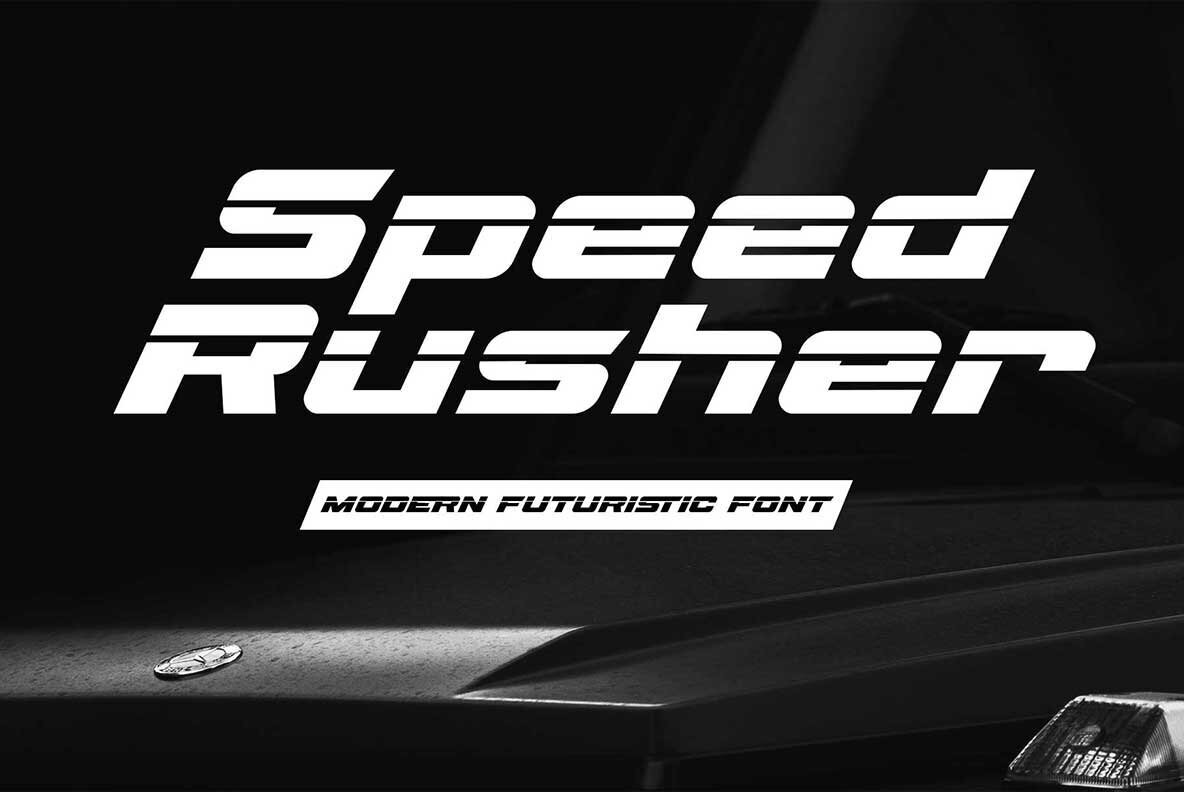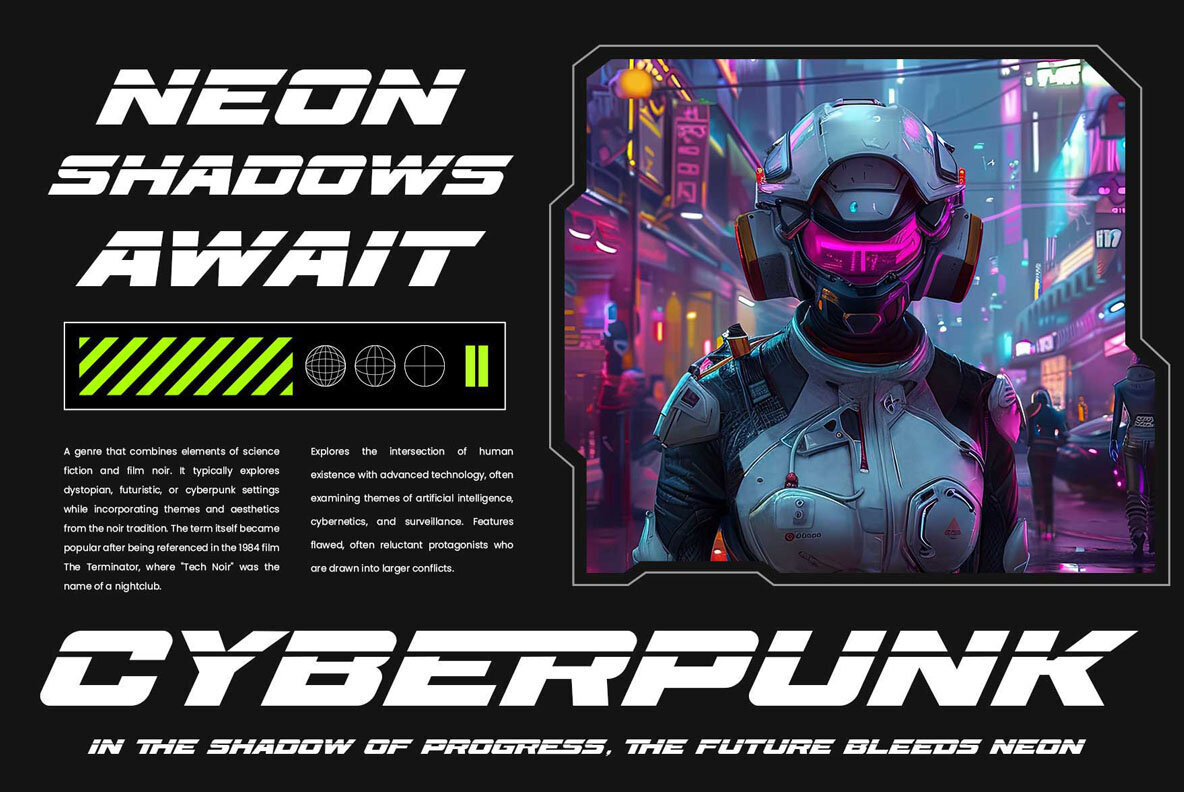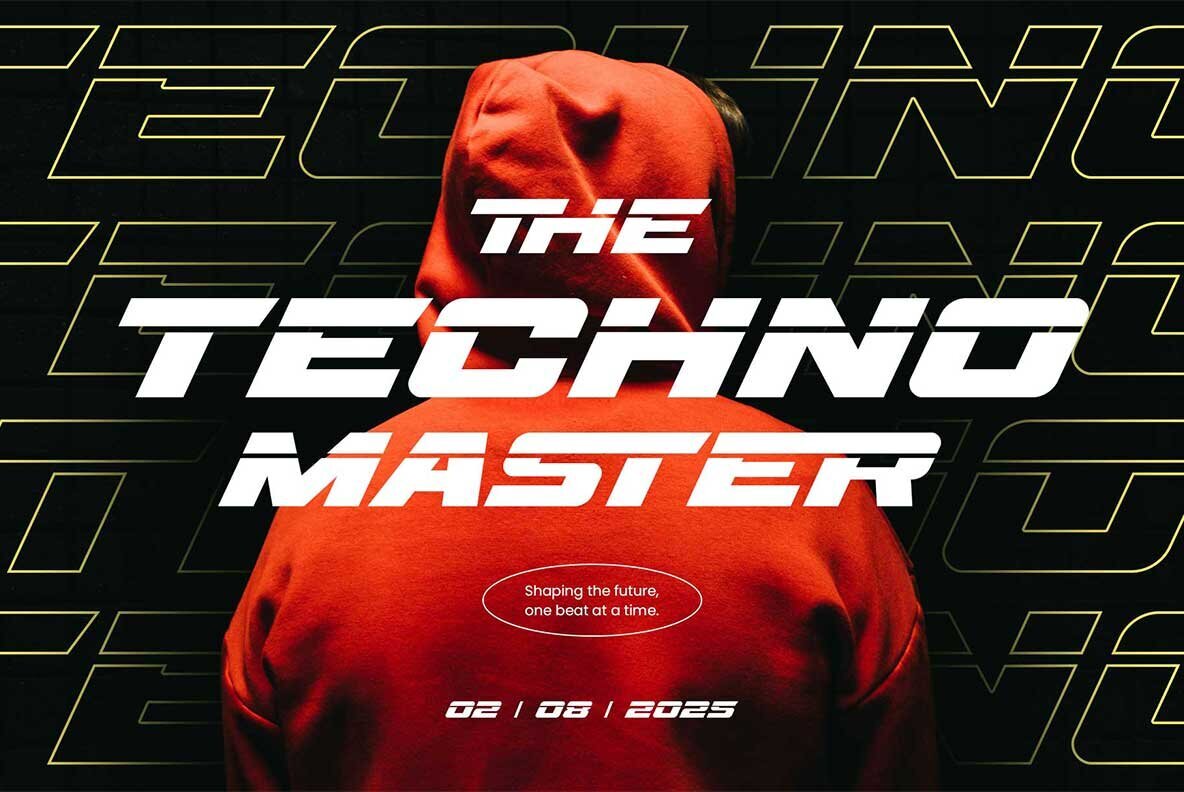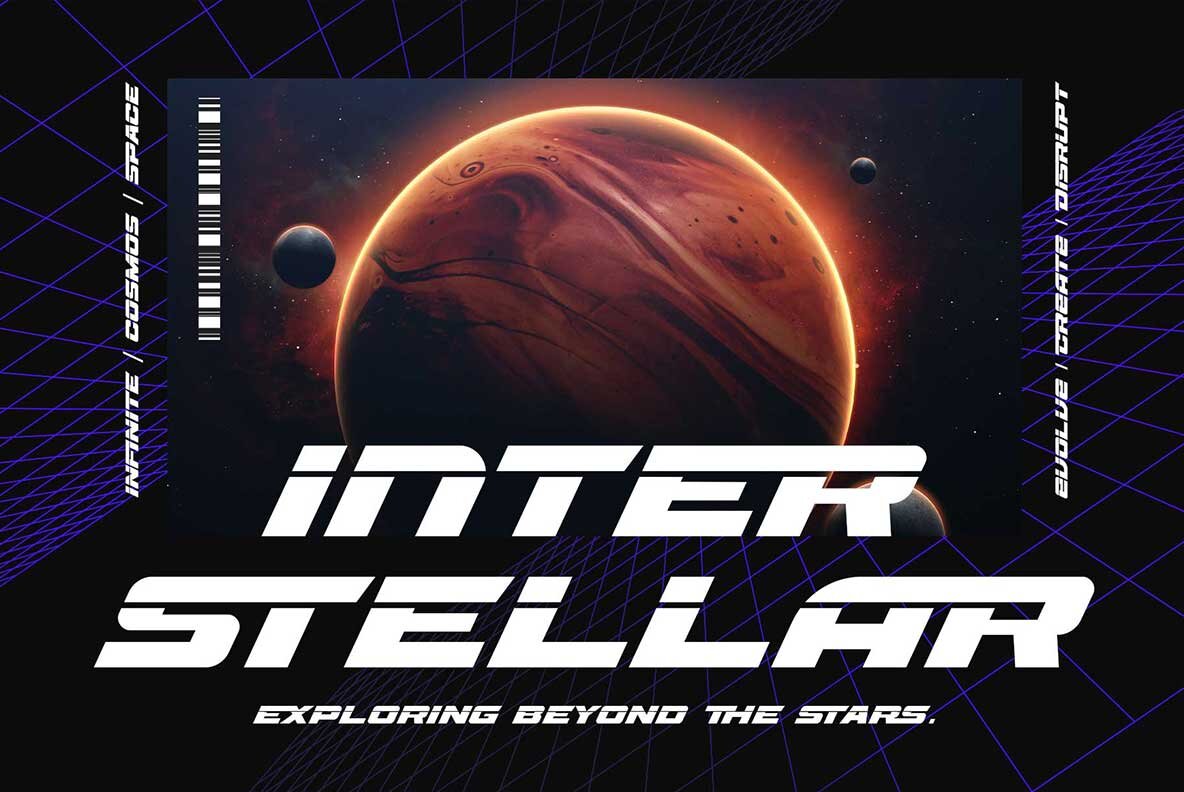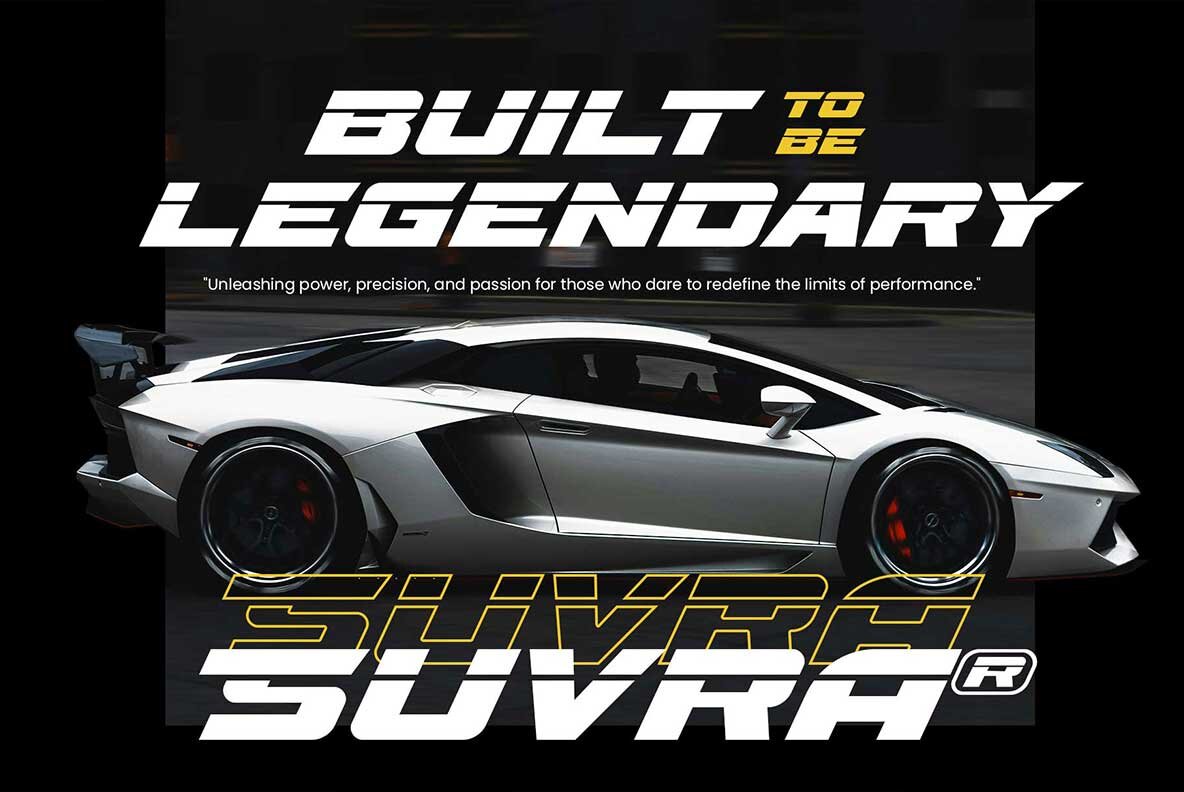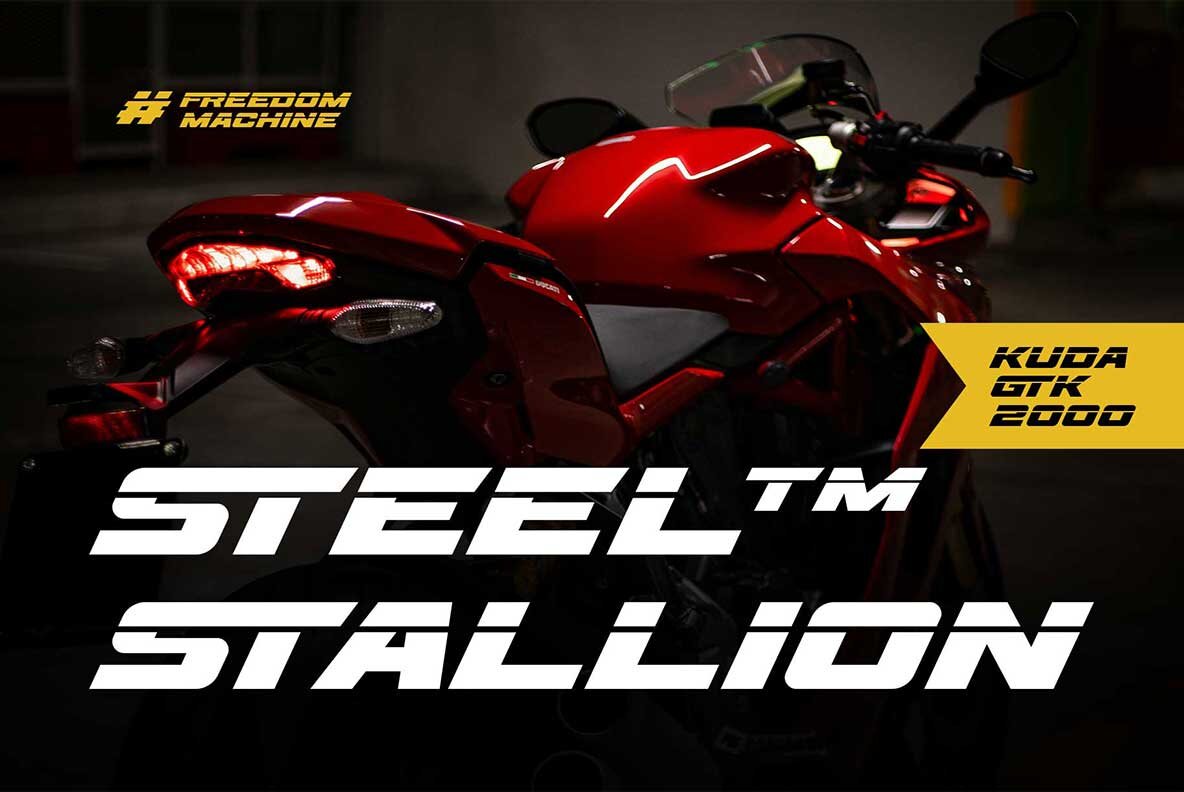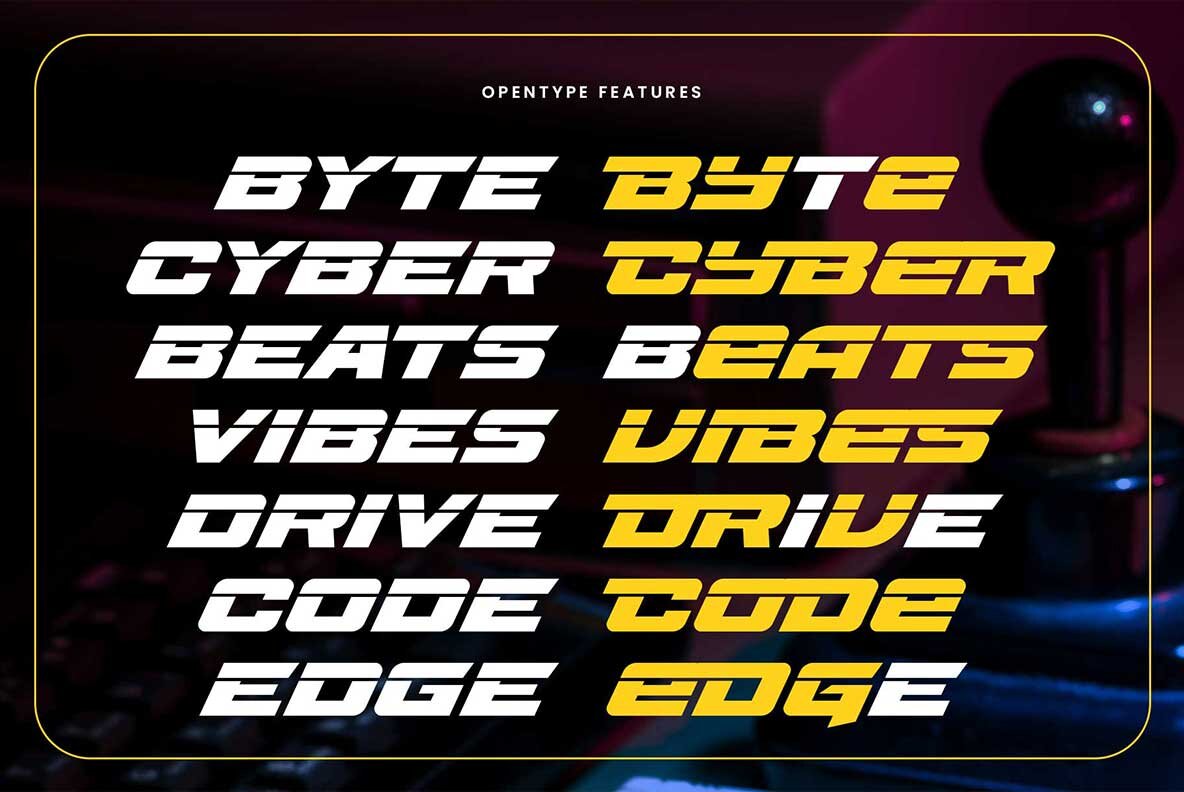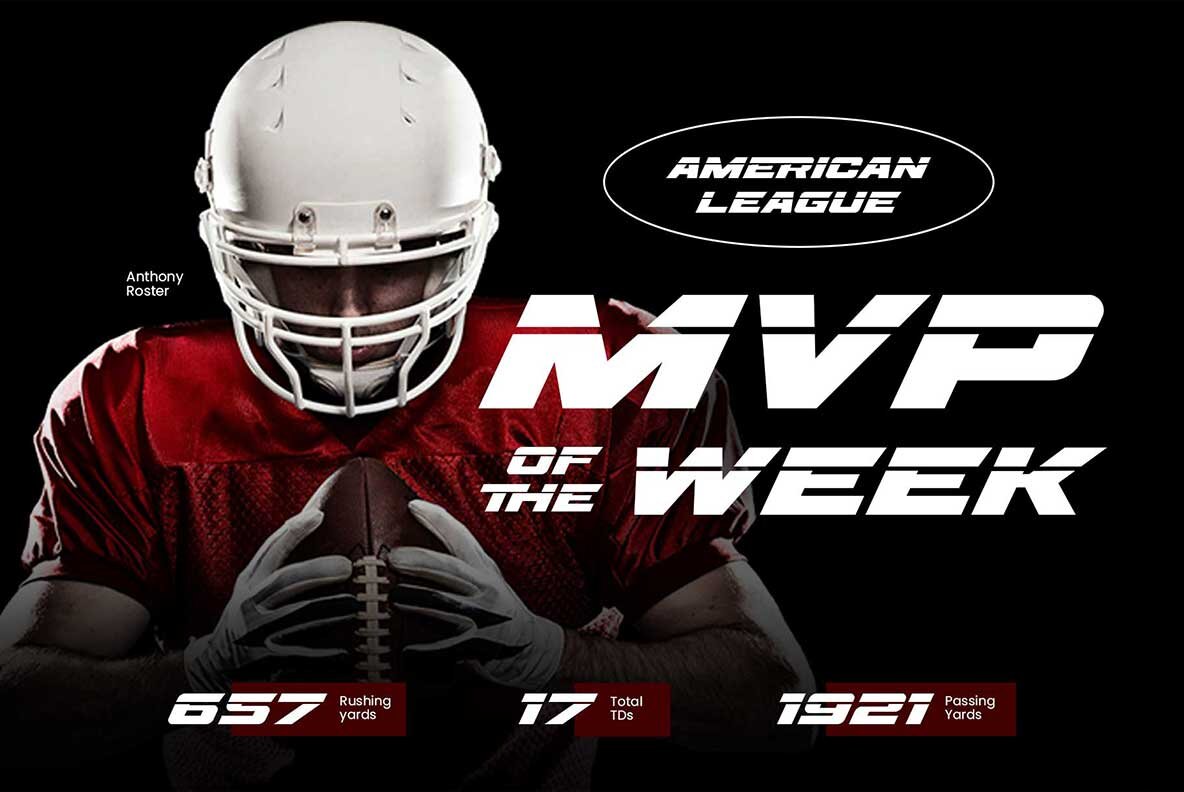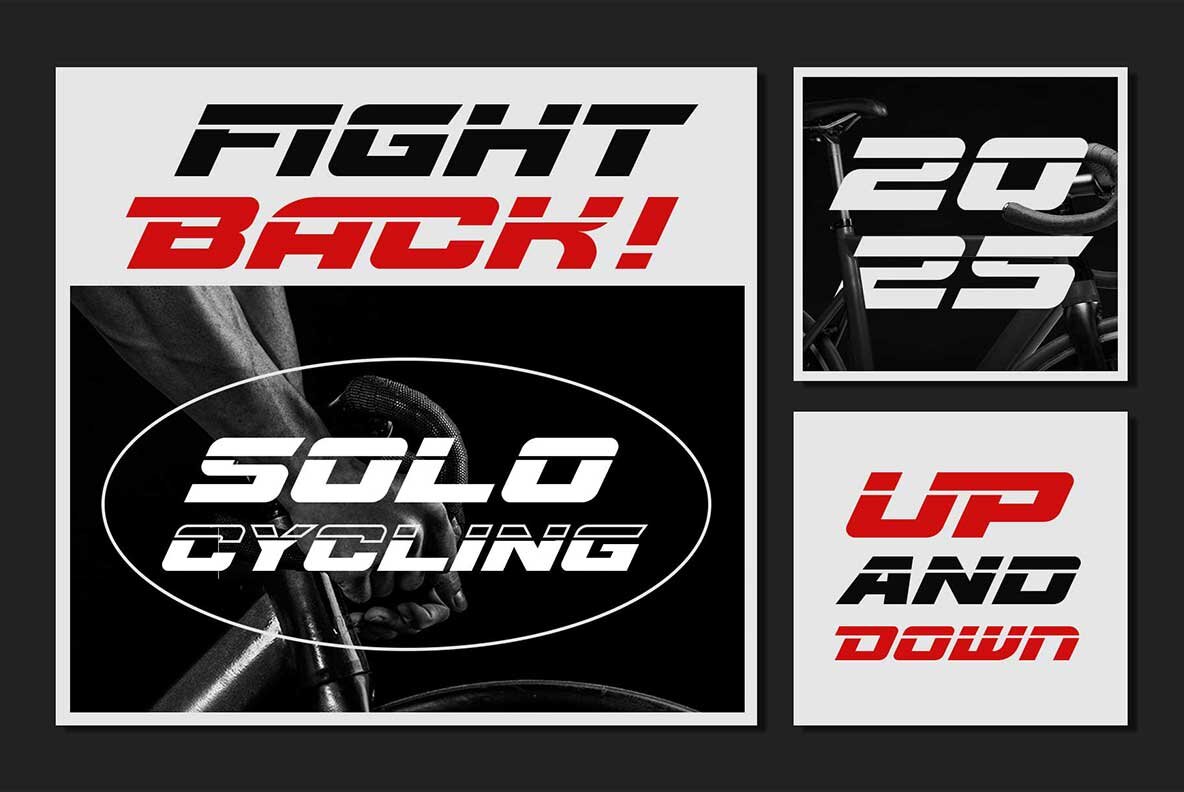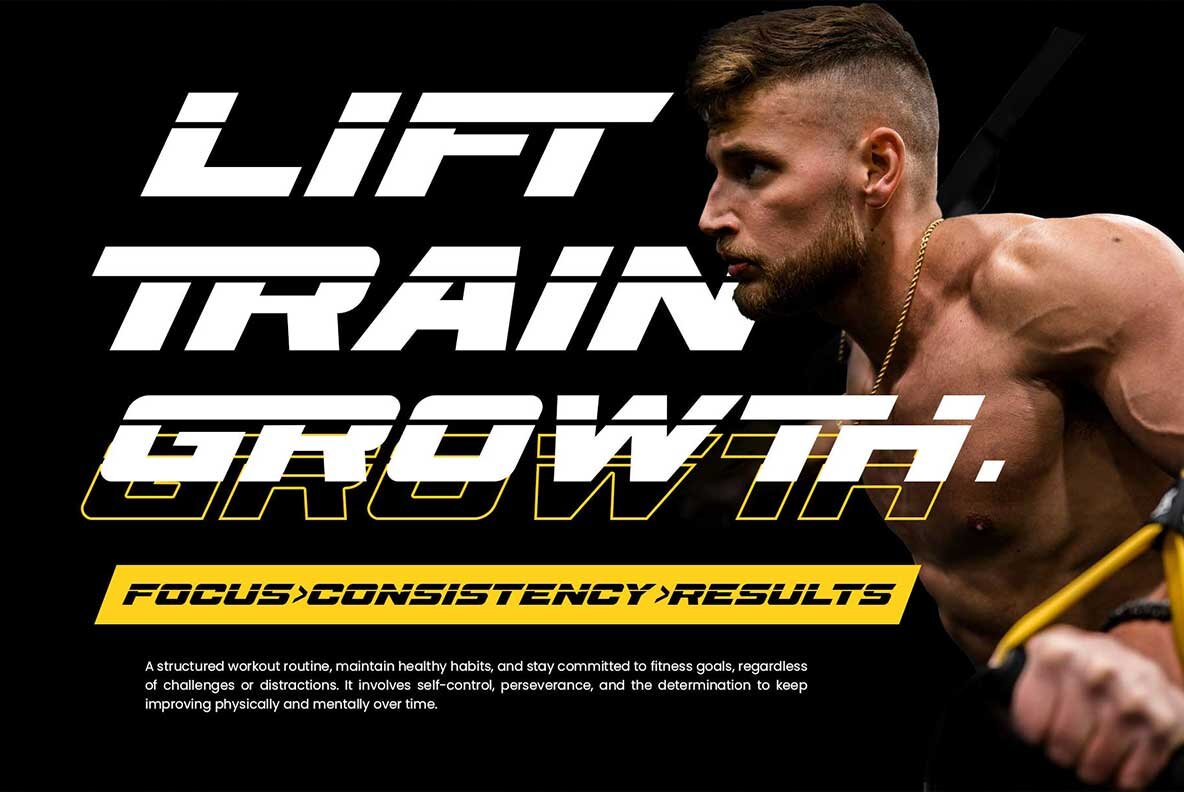
Speed Rusher Font
Speed Rusher Regular
Speed Rusher is an elegant and sporty font embodying a cutting-edge futuristic vibe. This typeface is designed with sleek laser-cut letter effects and bold strokes, symbolizing speed, power, and advanced technology. Ideal for sports-themed and futuristic projects, Speed Rusher adds a dynamic and modern touch to your designs.
Packed with stylistic alternates and ligatures, Speed Rusher offers endless creative possibilities, enabling you to craft luxurious and distinctive typography that commands attention. This font includes uppercase and lowercase letters, numbers, symbols, stylistic alternates, ligatures, and accented characters, making it the ultimate choice for professionals in sports, technology, and futuristic design fields seeking a standout typographic solution.